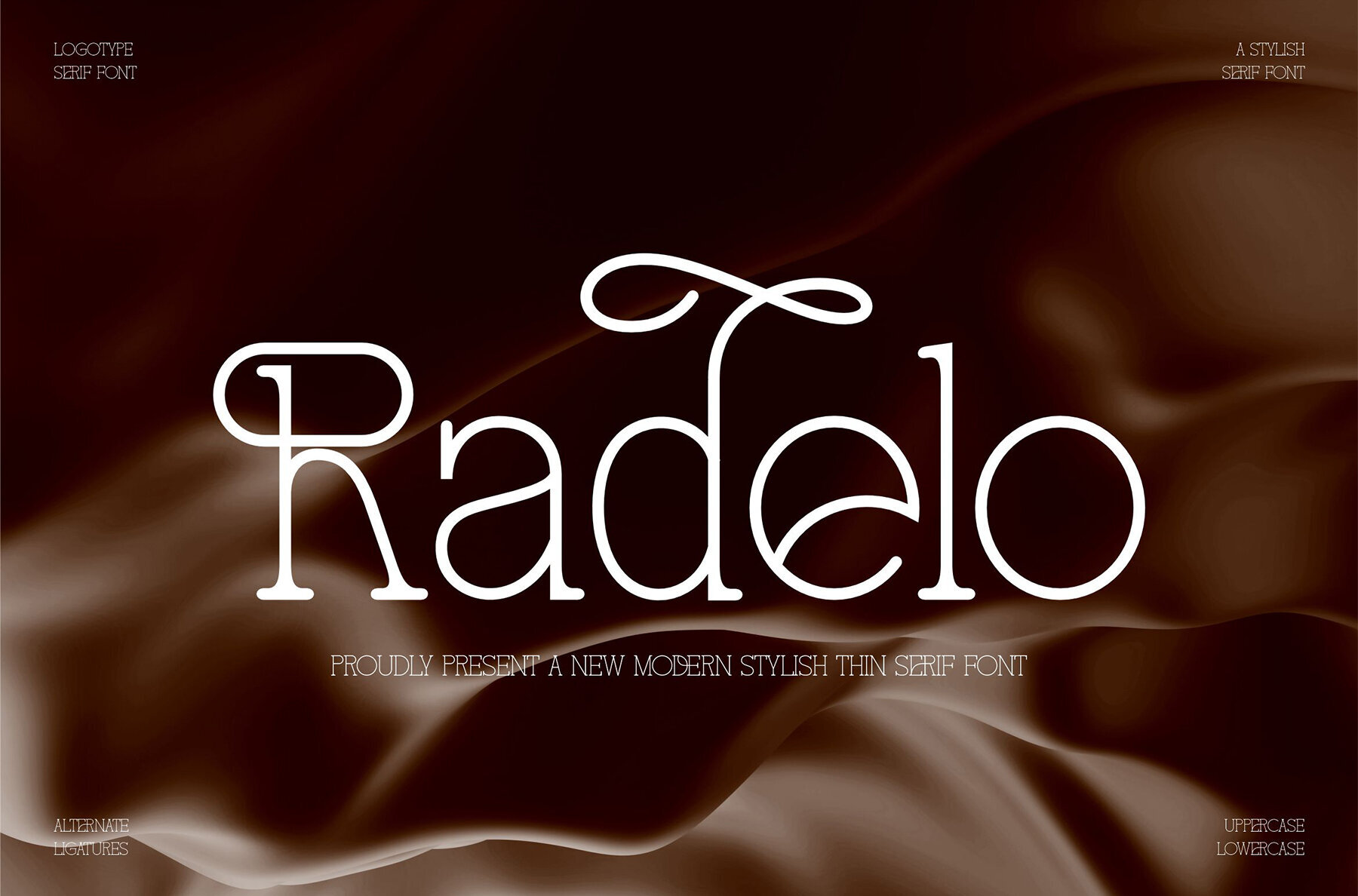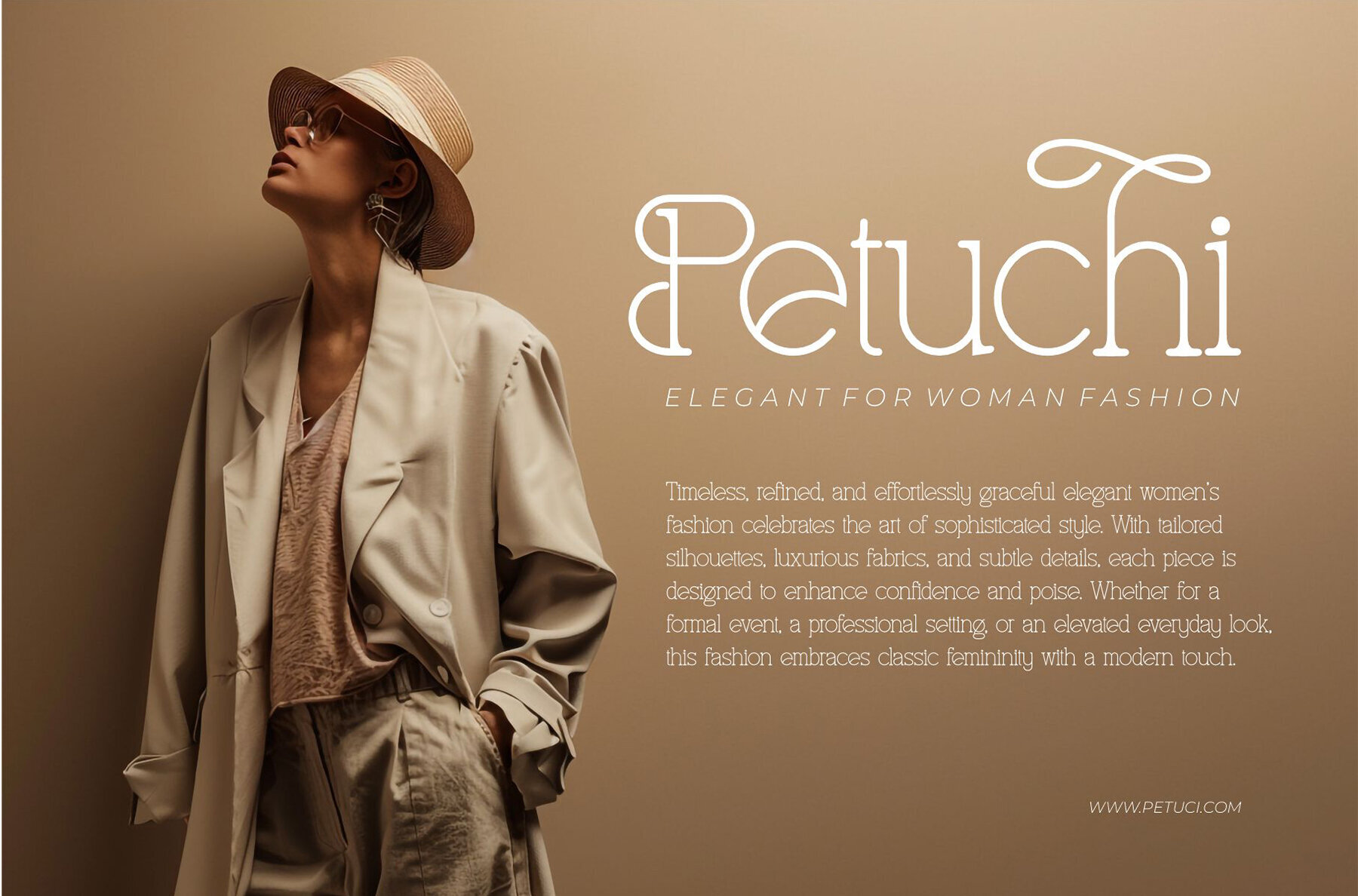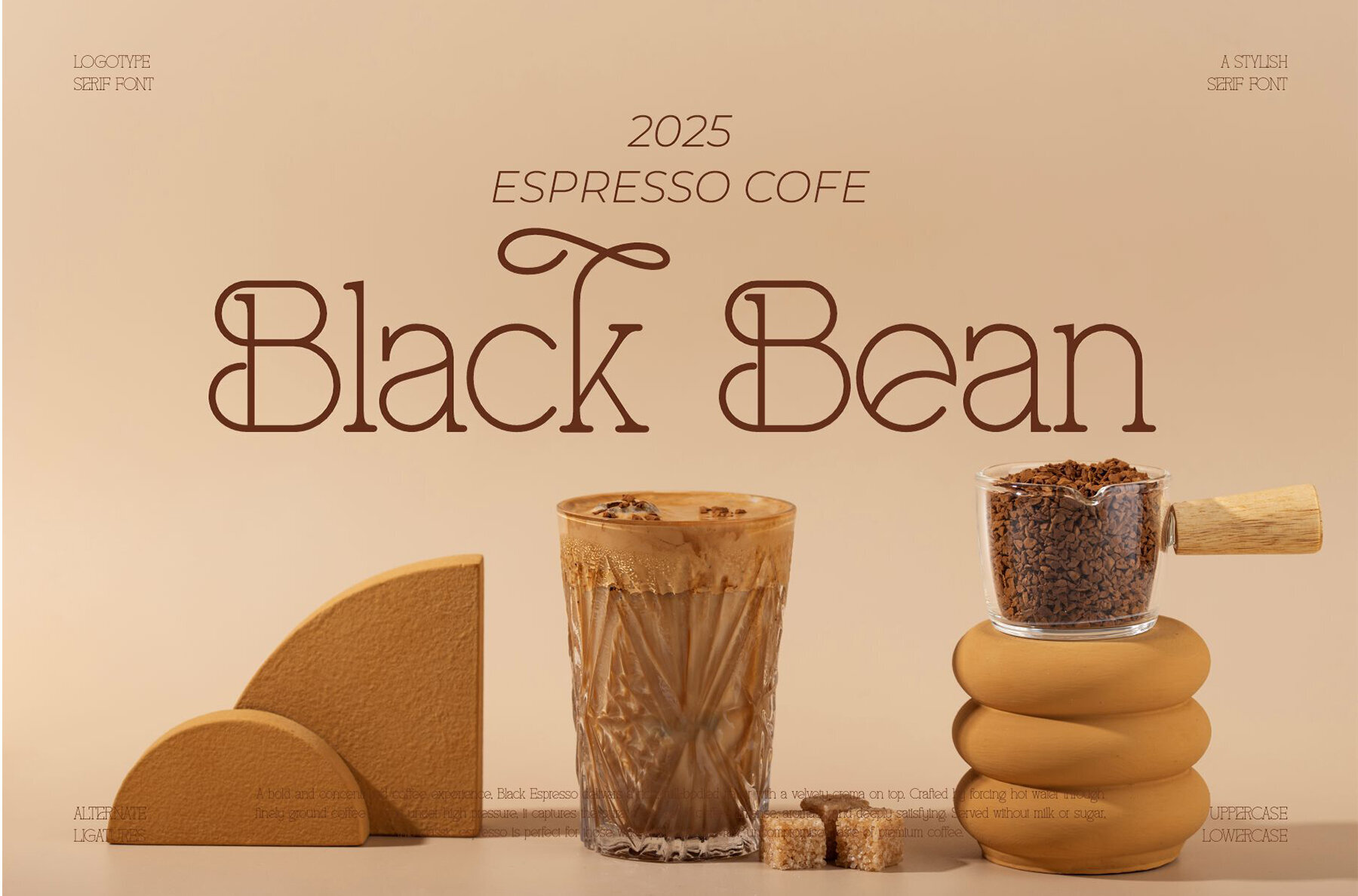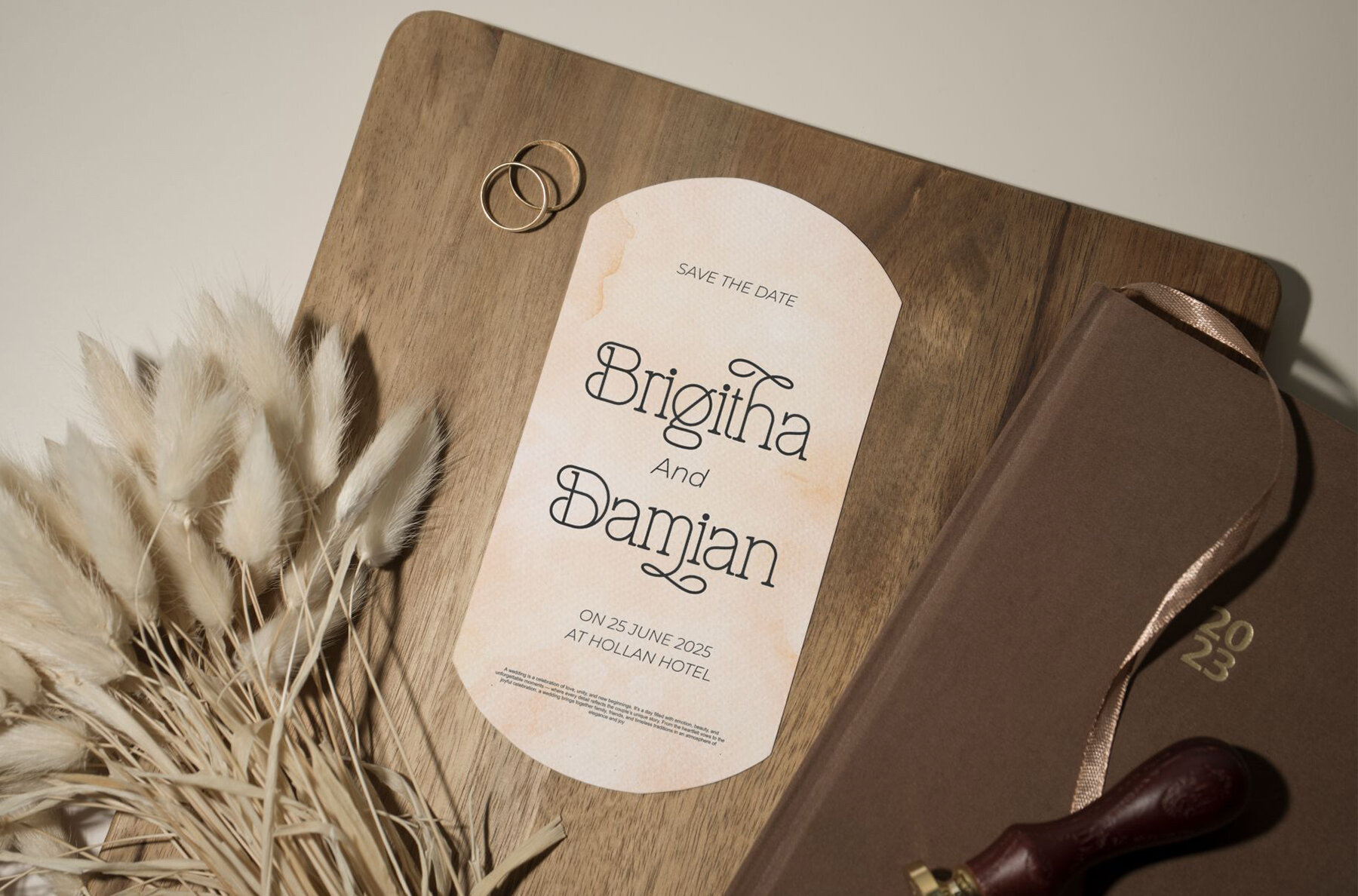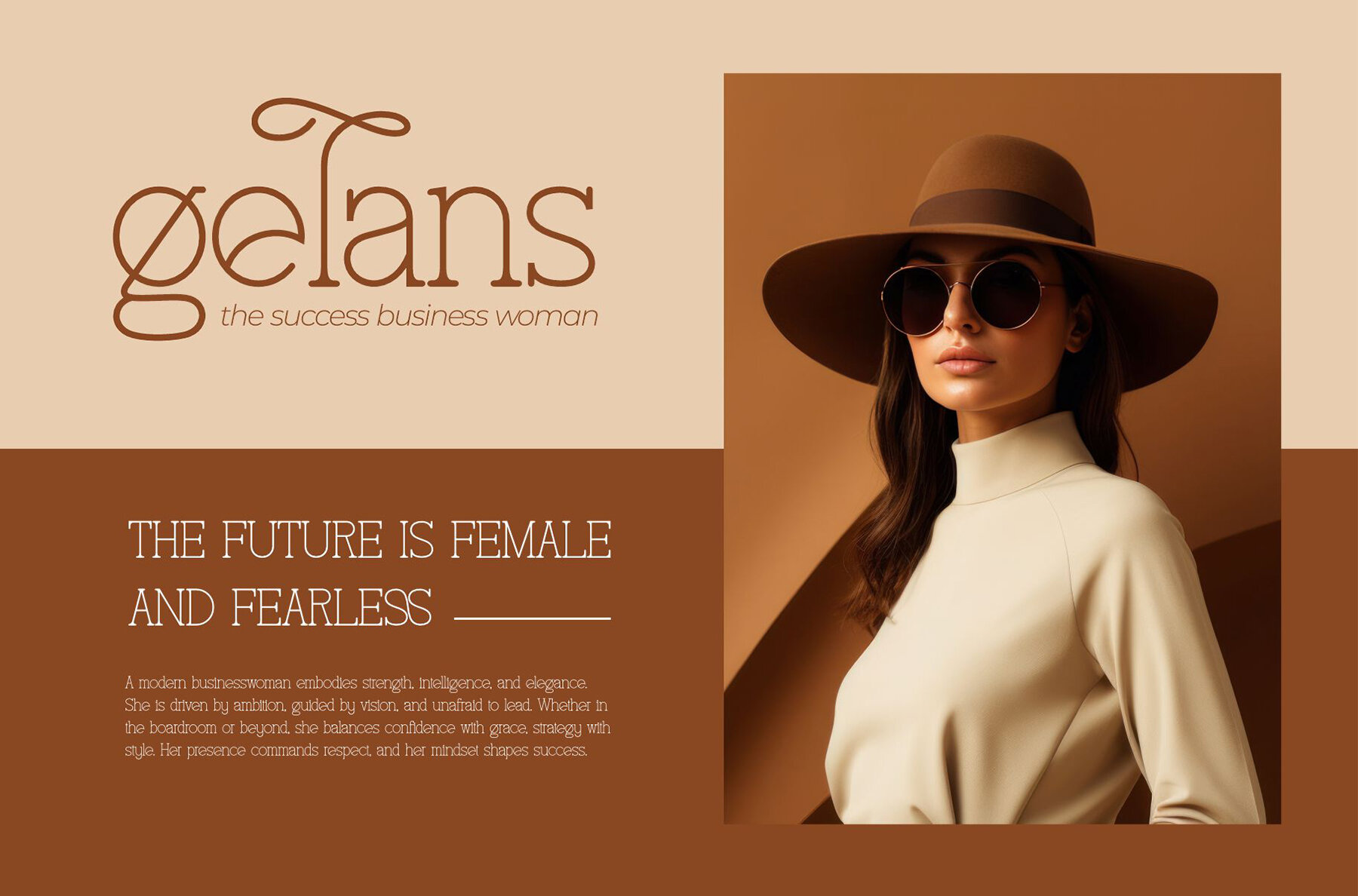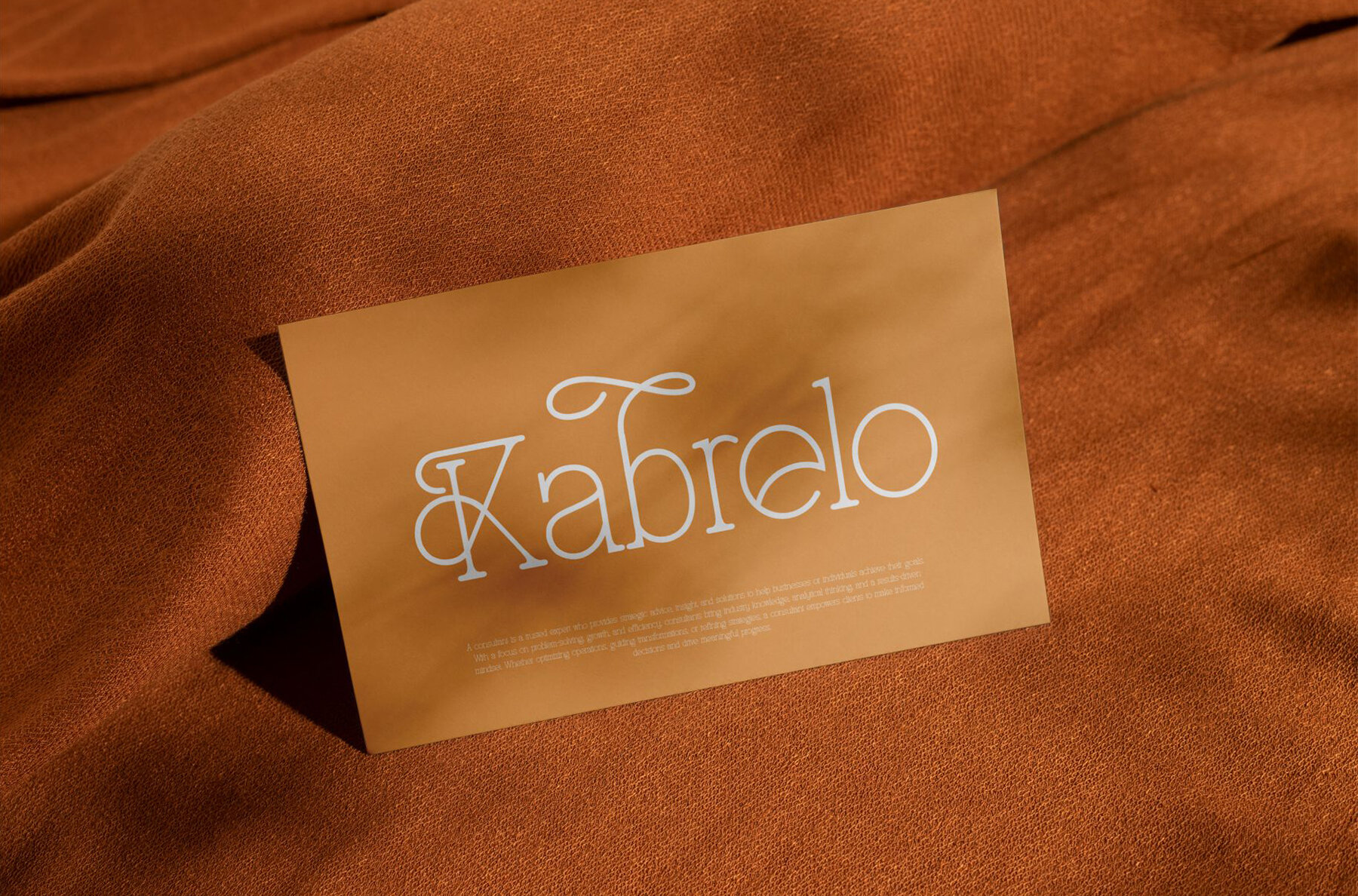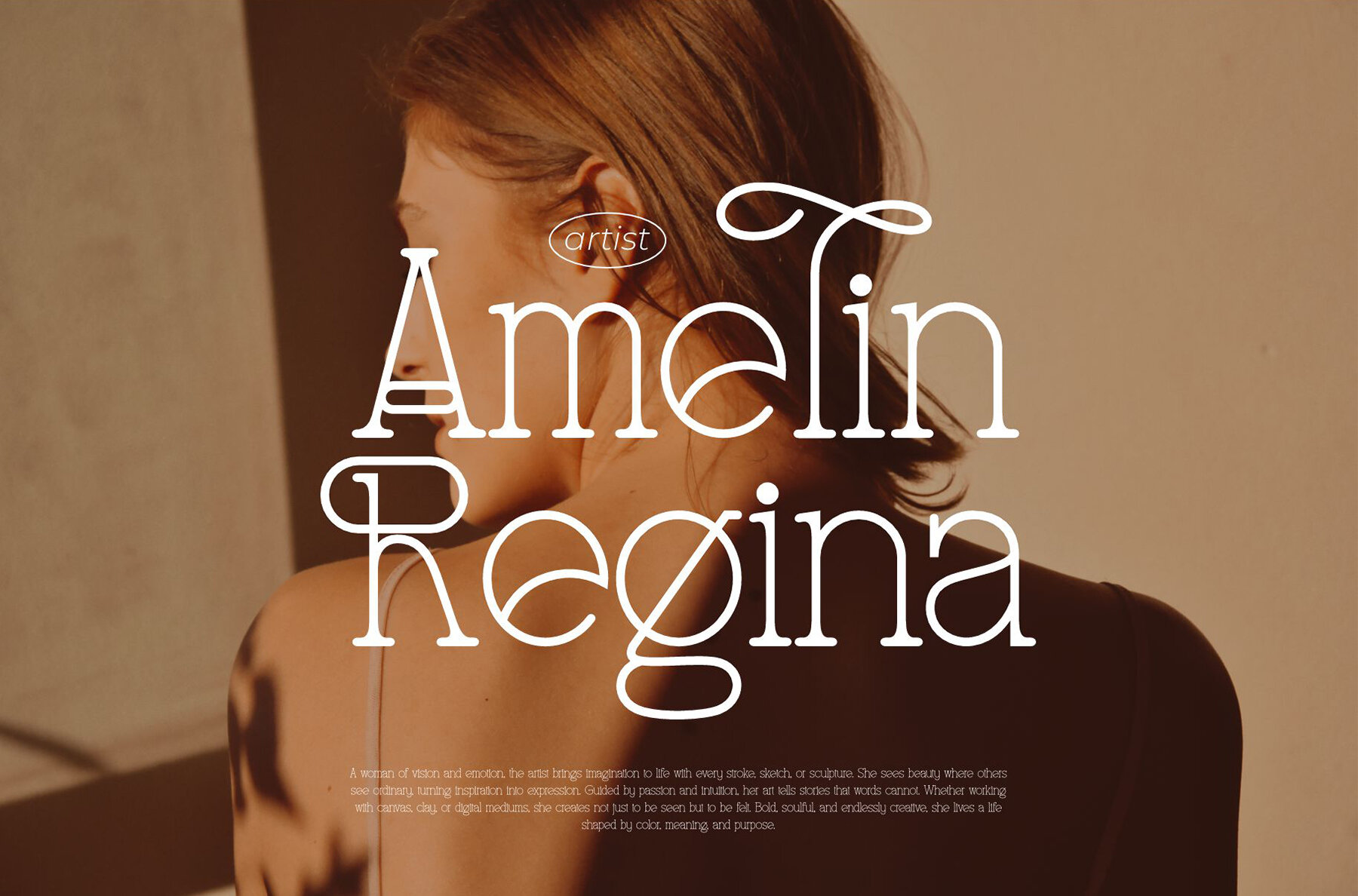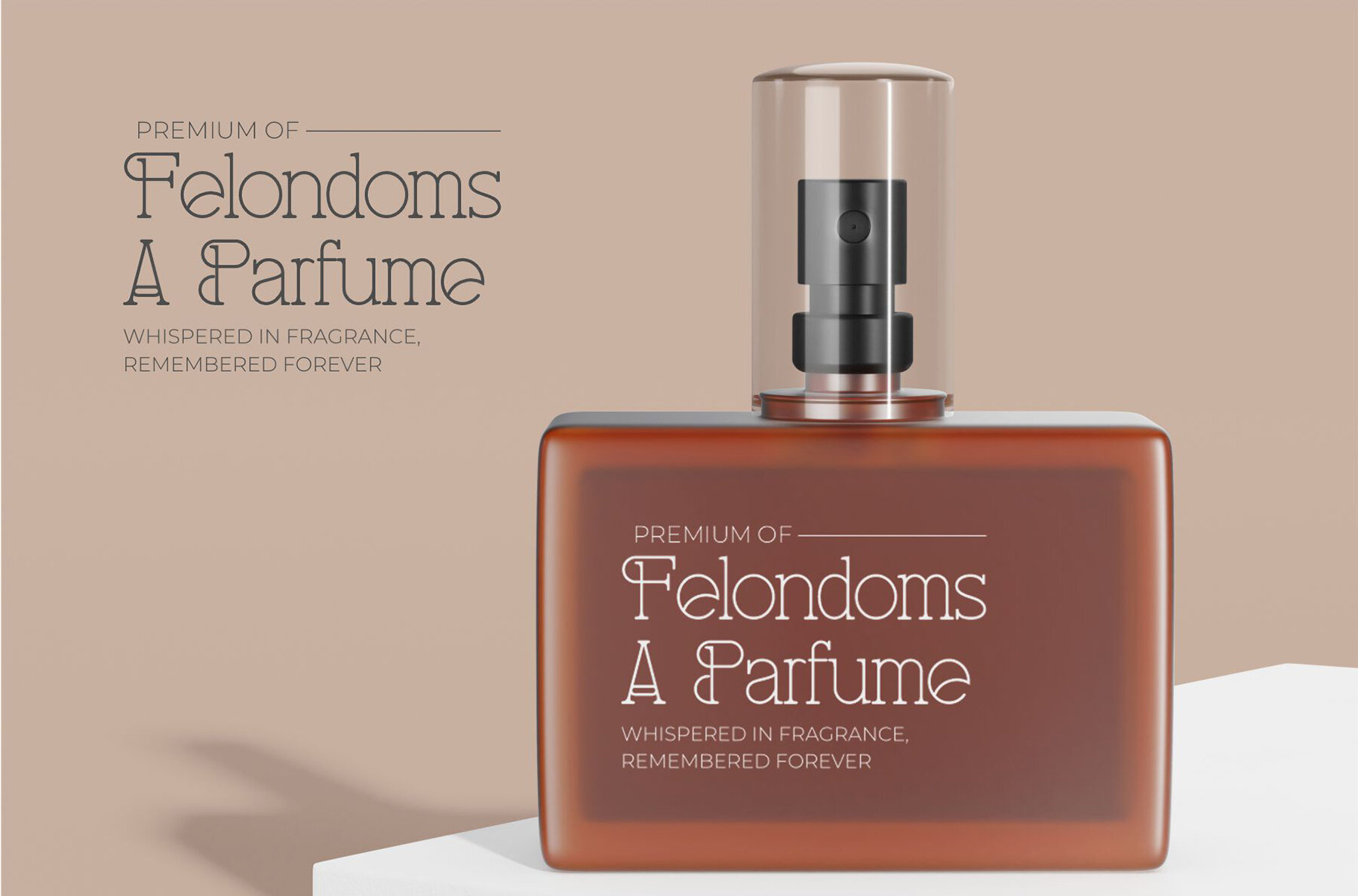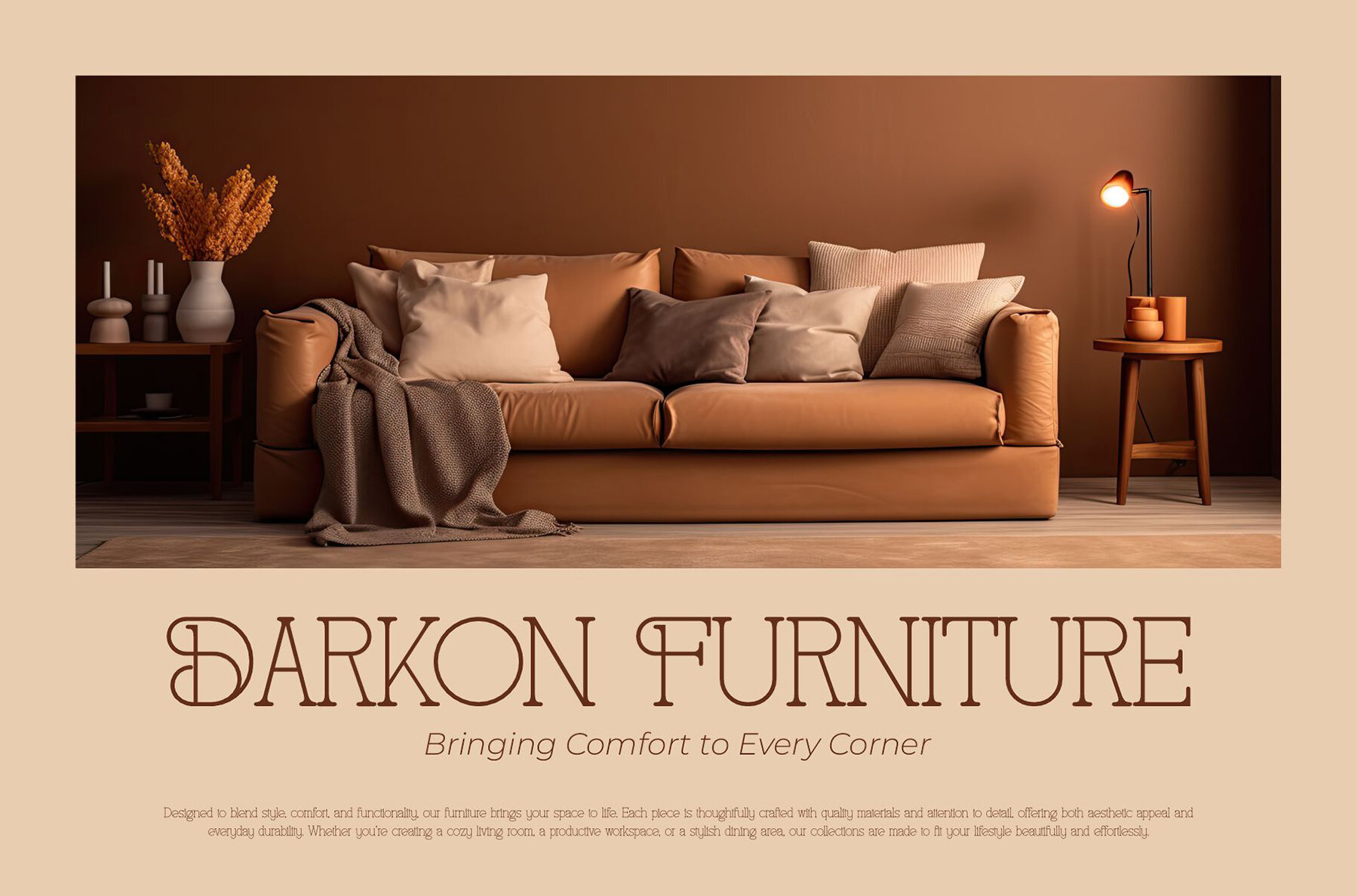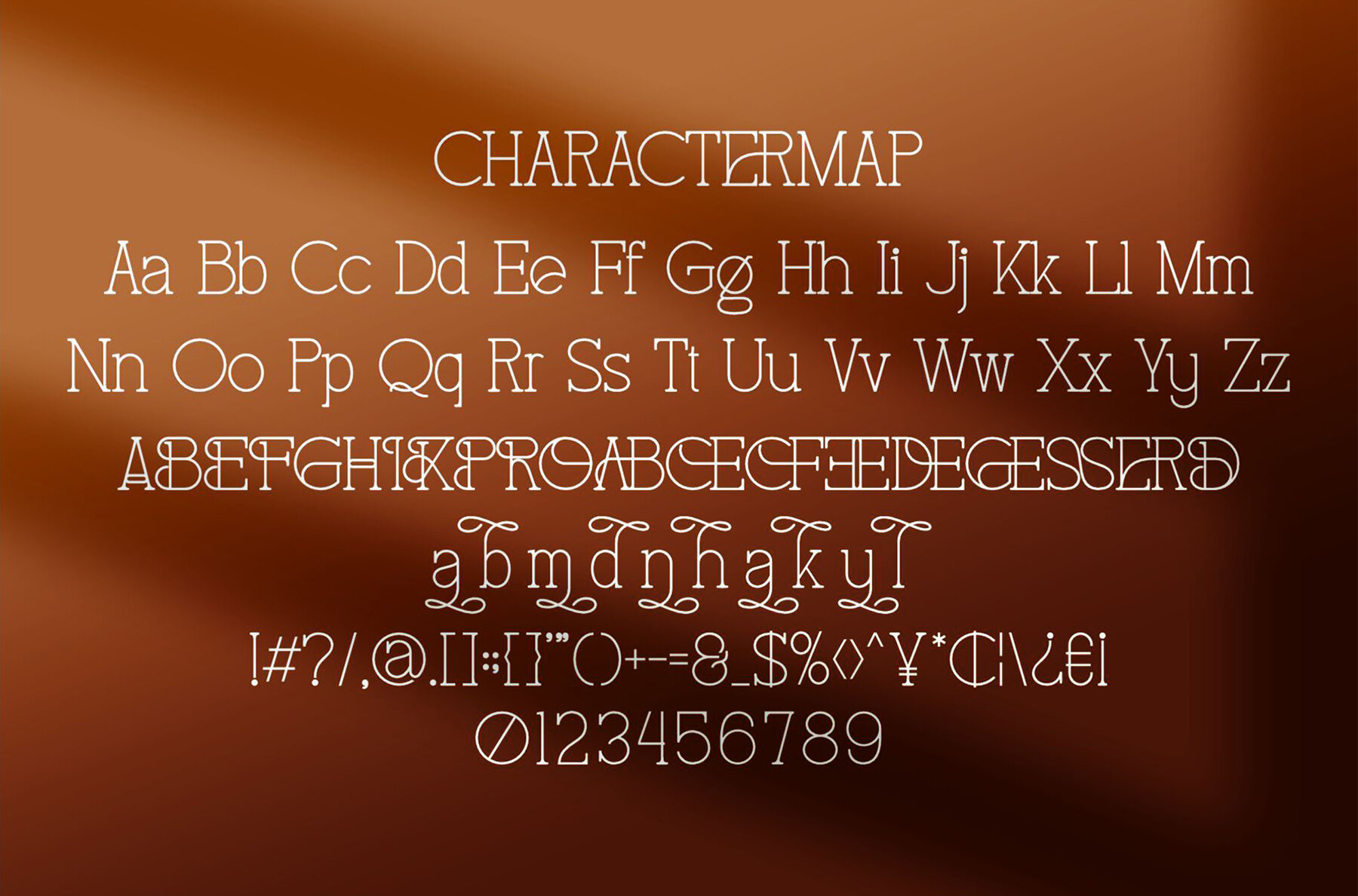
Radelo Font
Radelo
Radelo is a chic and trendy serif font that brings a touch of elegance with its modern, thin styling. Capturing a wood-inspired charm, it's an ideal choice to elevate your design projects. Whether you're crafting invitation cards, designing company logos, or giving a fresh look to movie titles and business cards, Radelo complements them all with its uniqueness.Radelo: A Modern Thin Serif Font